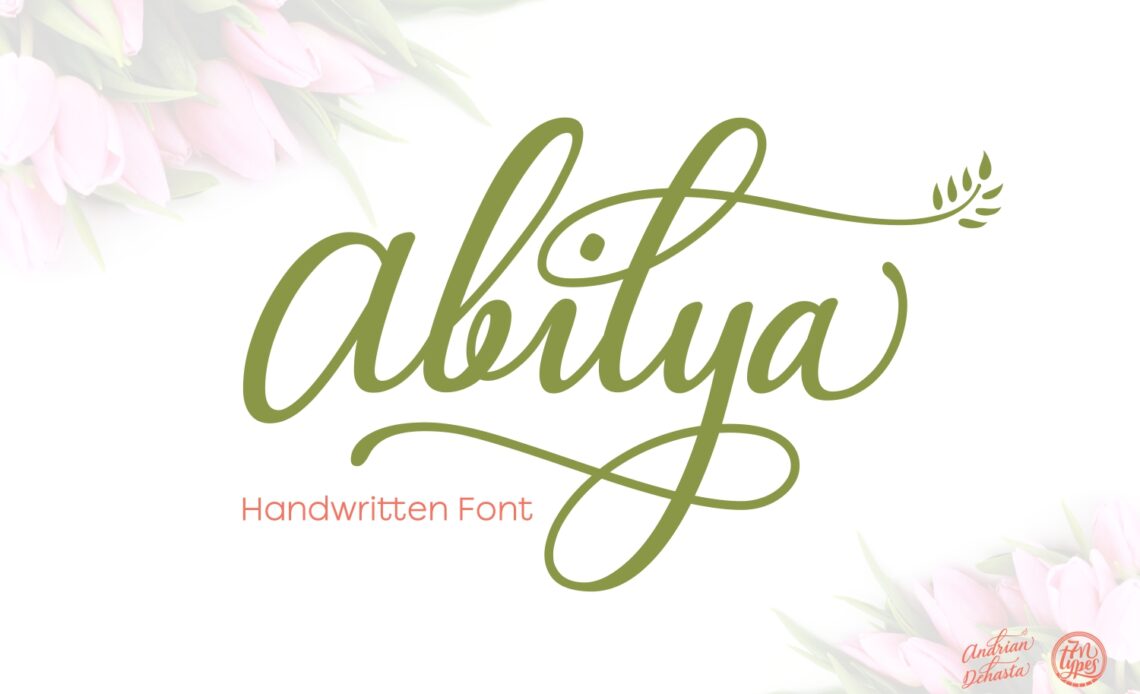
**Introducing Abilya: The Enchanting Script Font that Will Captivate Your Audience**
Embark on a captivating typographic journey with Abilya, an exquisite script font that exudes elegance and charm. Meticulously crafted by the visionary designer, Andrian Dehasta, this enchanting font is destined to leave an indelible mark on your creative endeavors.
Abilya's graceful curves and delicate strokes evoke the allure of a handwritten masterpiece. Its alluring personality is a perfect match for a wide array of creative projects, including wedding invitations, romantic letters, and captivating social media posts.
Step into the world of Abilya and unveil a realm of possibilities where your words will dance with ethereal grace. Its versatility extends beyond the traditional, lending its enchanting touch to branding, packaging, and even logo design.
Indulge in the art of expression with Abilya, a font that will ignite your creativity and captivate your audience. Its enchanting allure will transform your projects into visually stunning masterpieces that leave a lasting impression.
**Features of the Abilya Font:**
* Exquisite script font with graceful curves and delicate strokes
* Perfect for a wide range of creative projects, including invitations, romantic messages, and social media posts
* Versatile font that lends its charm to branding, packaging, and logo design
* Enchanting allure that will captivate your audience and leave a lasting impression
**Benefits of Using the Abilya Font:**
* Create stunning wedding invitations that will be cherished forever
* Craft heartfelt romantic letters that will touch the depths of your loved one's heart
* Elevate your social media presence with captivating posts that stand out from the crowd
* Establish a strong brand identity with a logo that exudes elegance and charm
* Captivate your audience with packaging that is both visually appealing and unforgettable